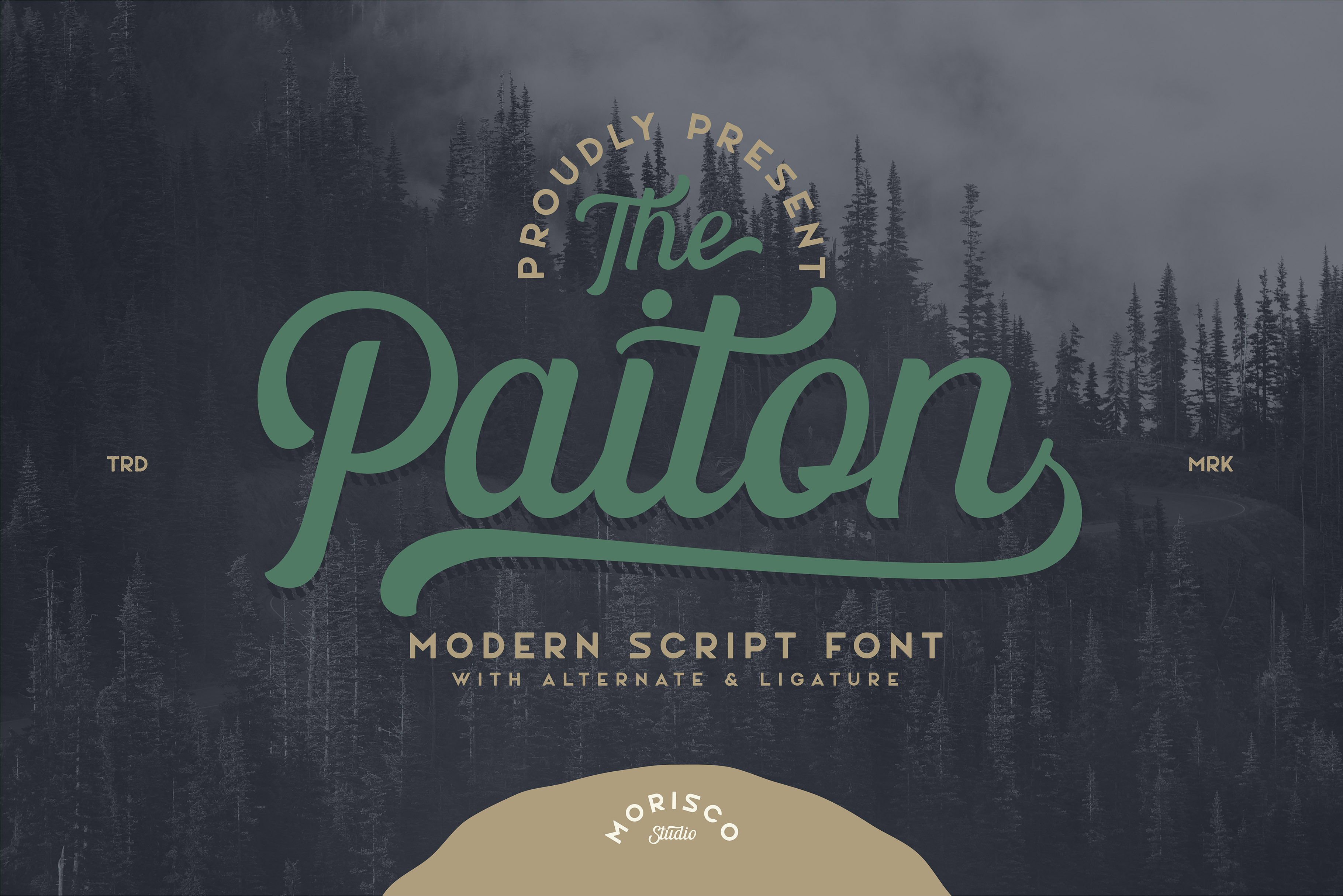
The Paiton -Modern Script Font
The Paiton is handmade modern script font perfect for branding, logo, t-shirt (apparel), headline, packaging, greeting card, wedding invitation and more.